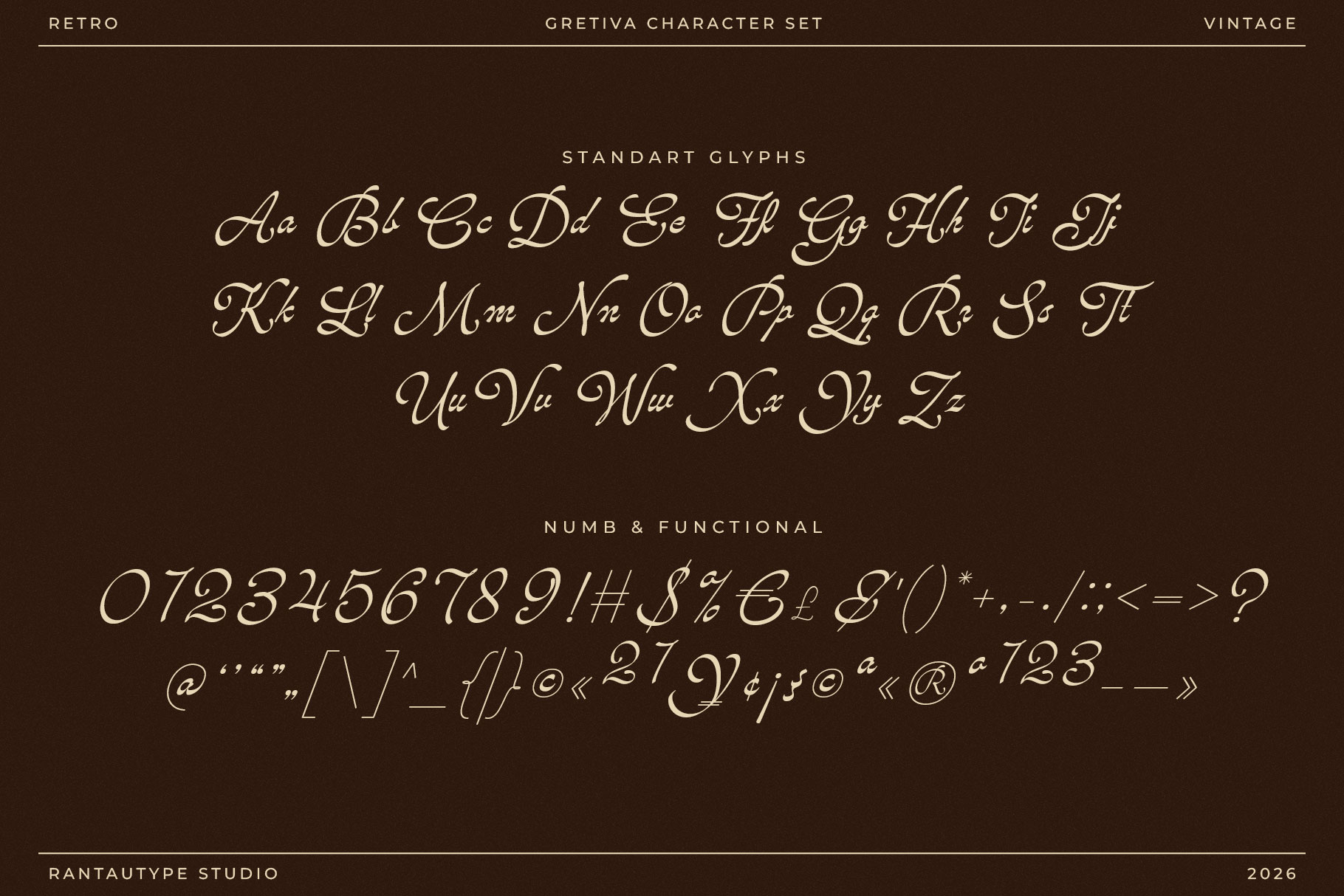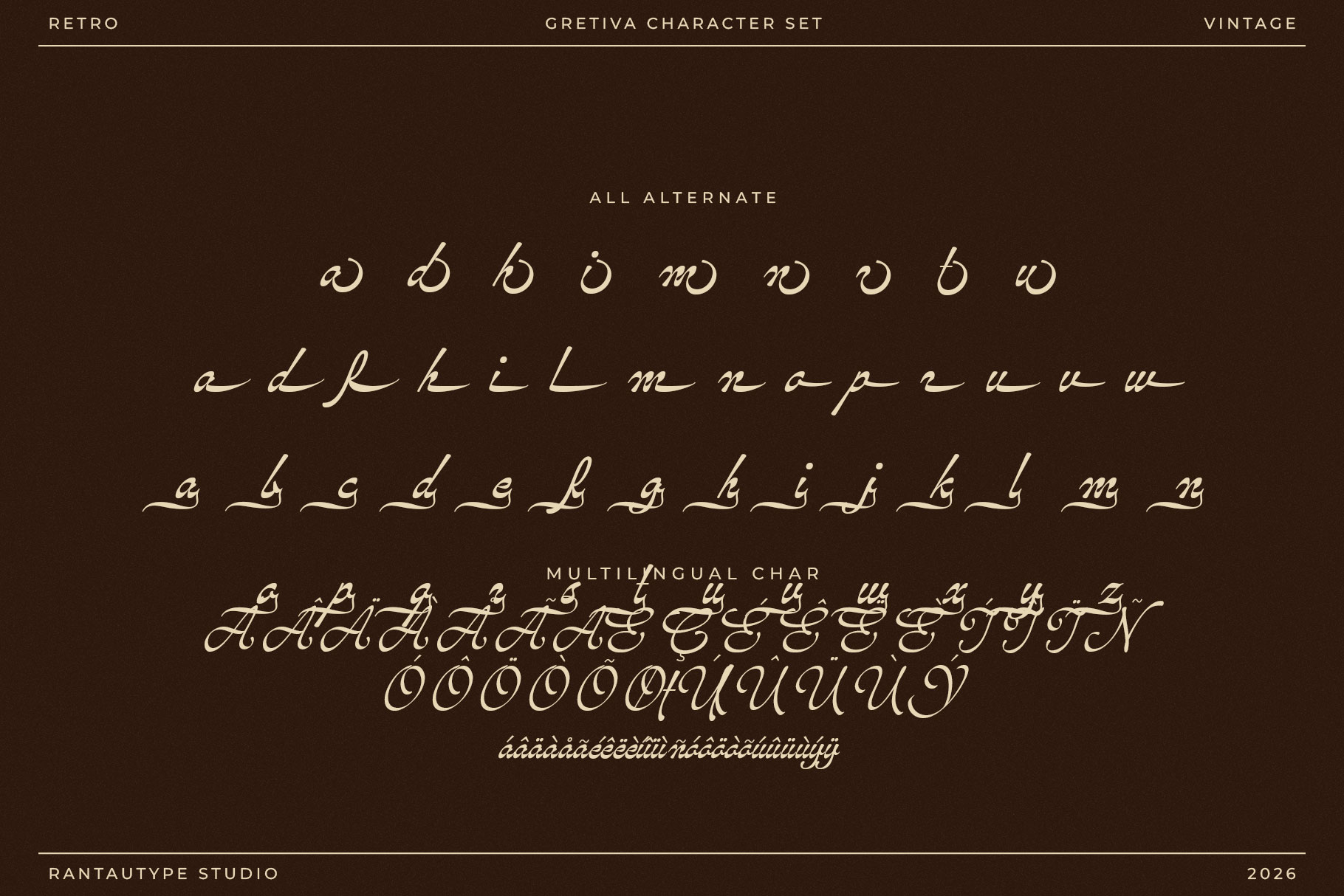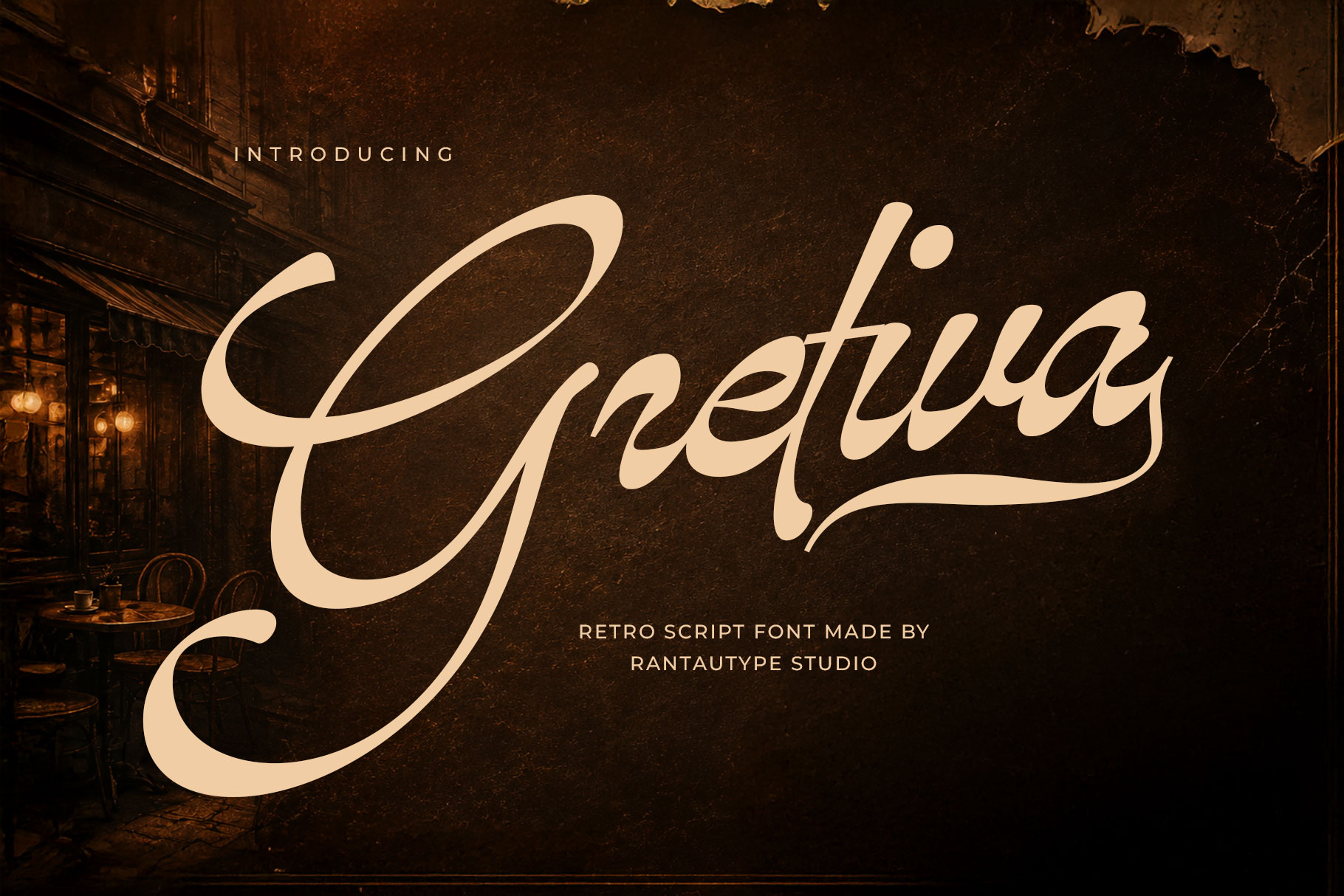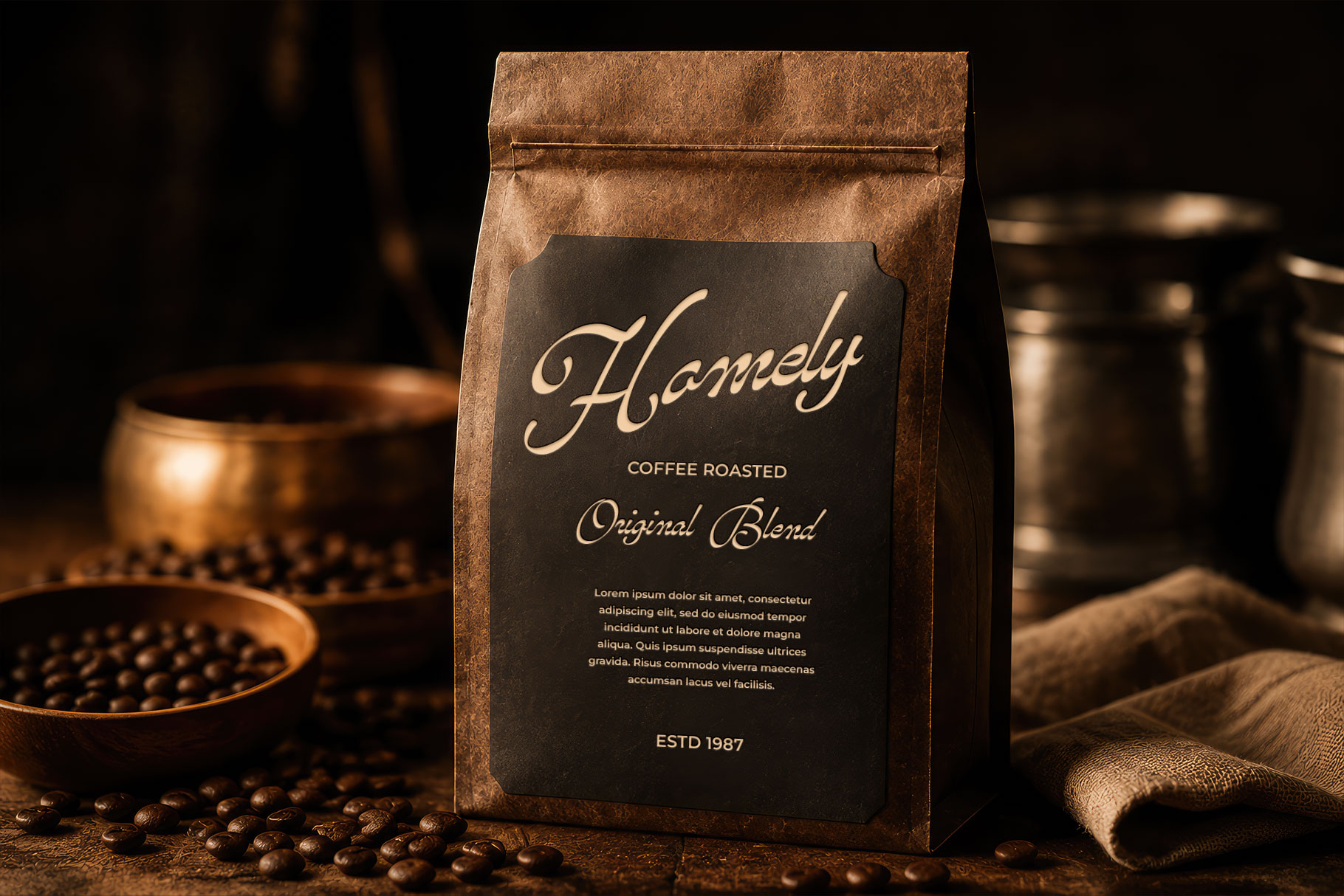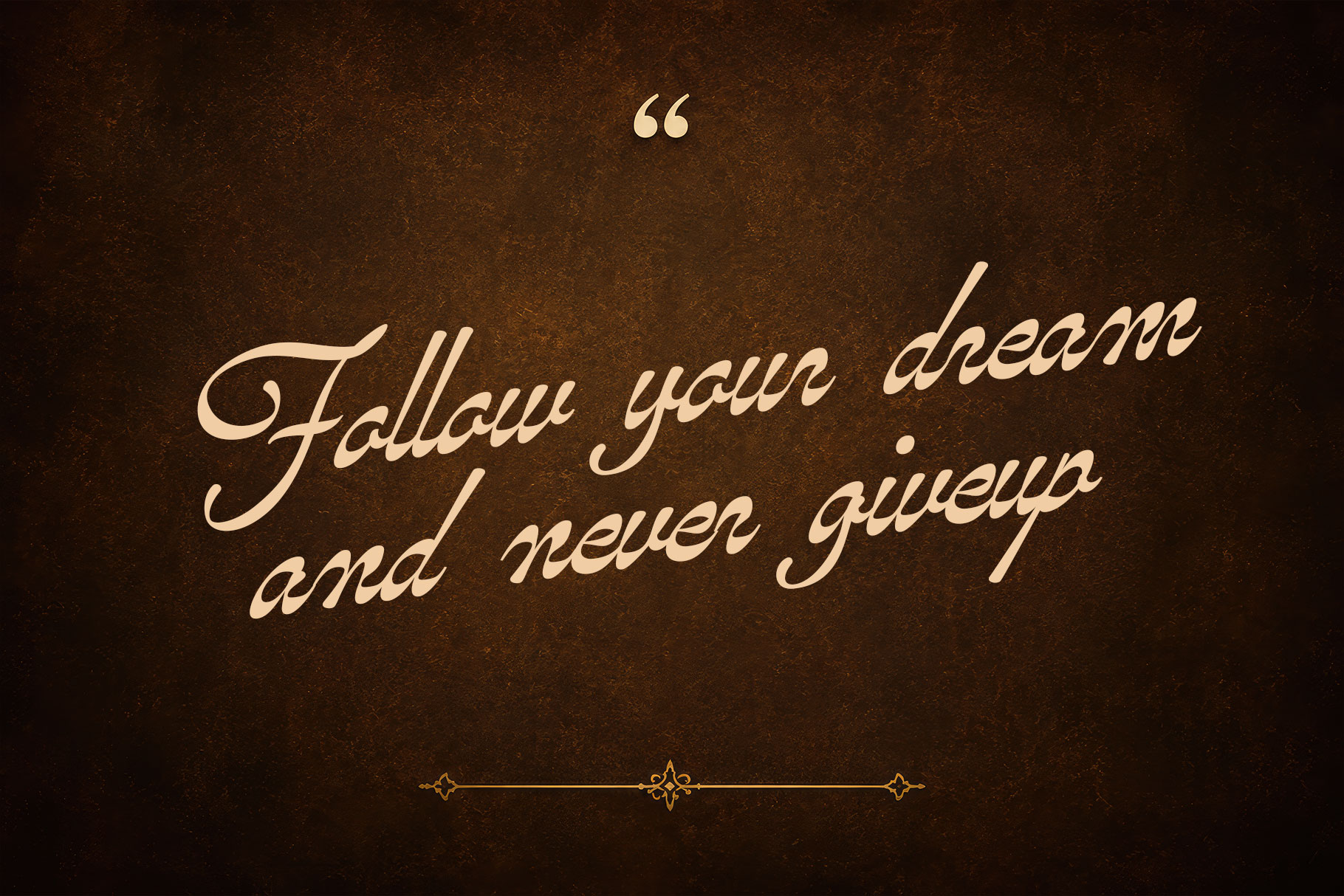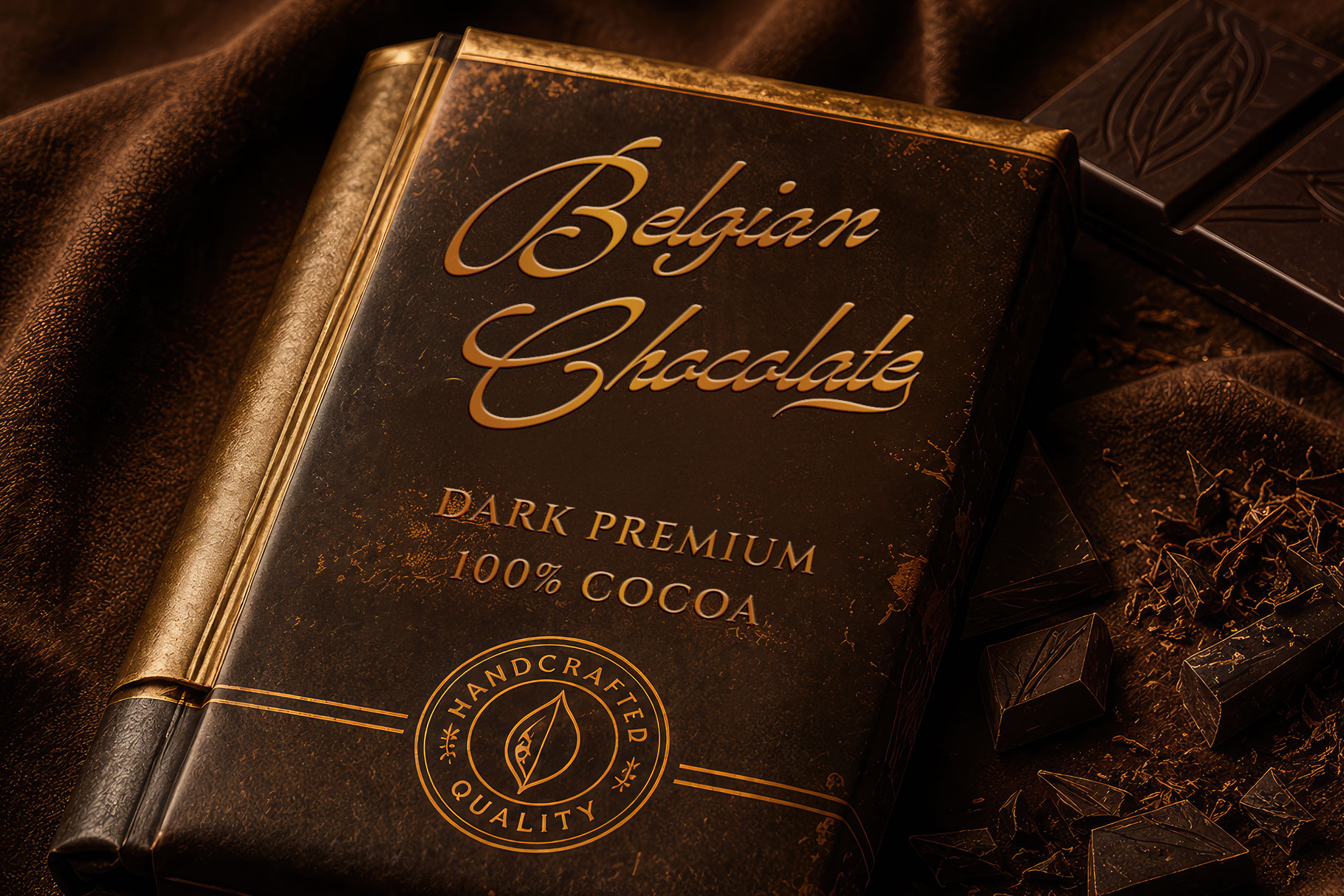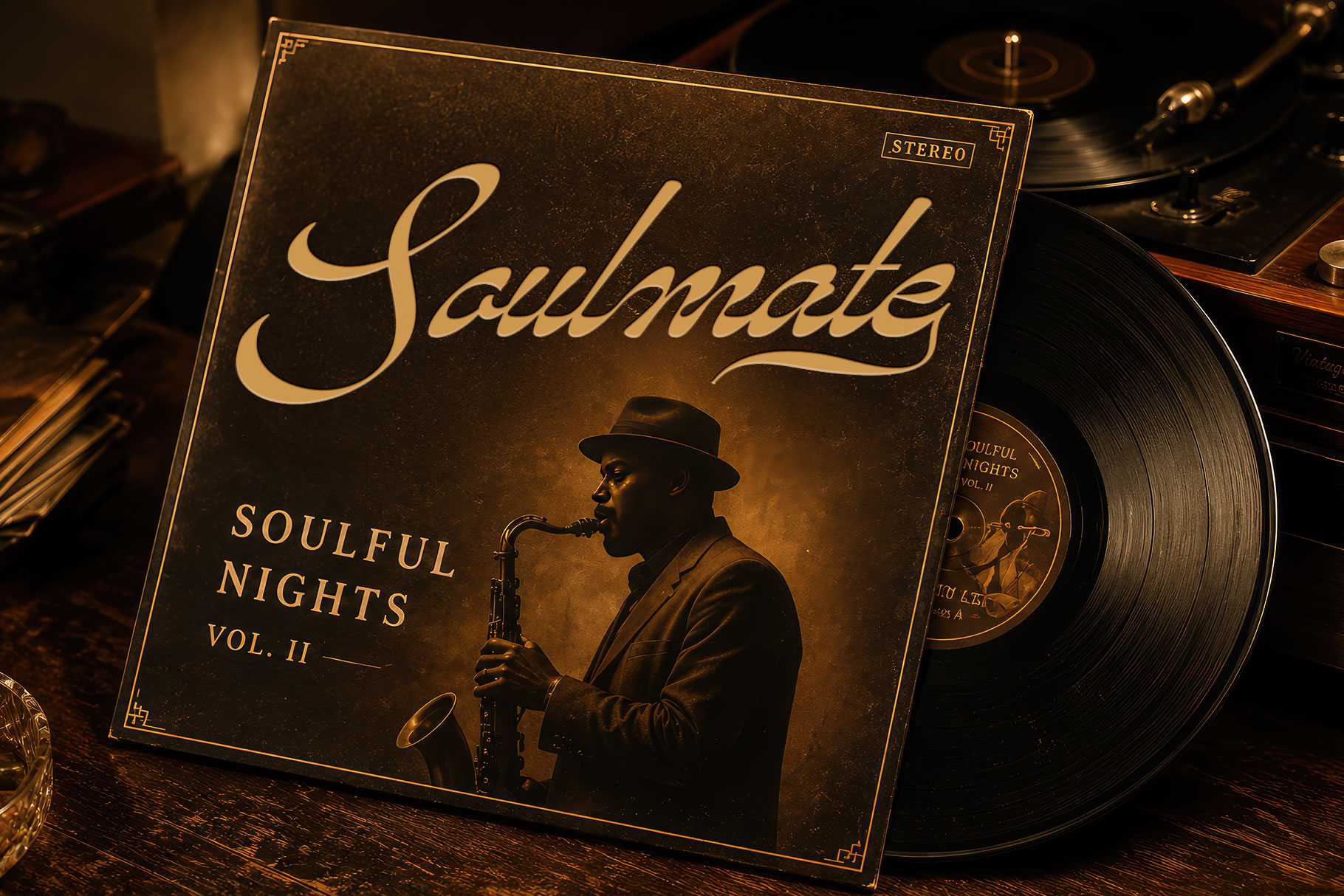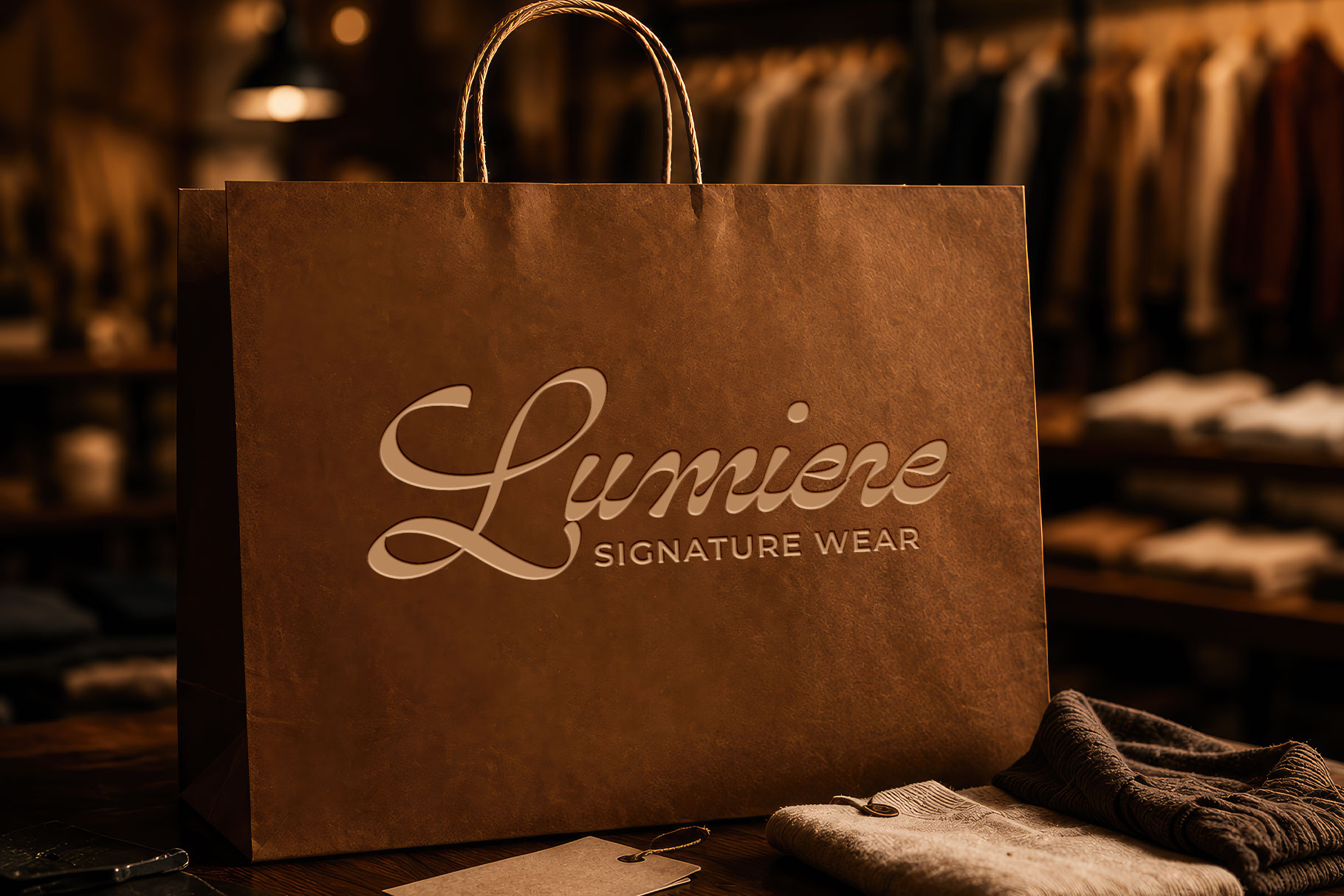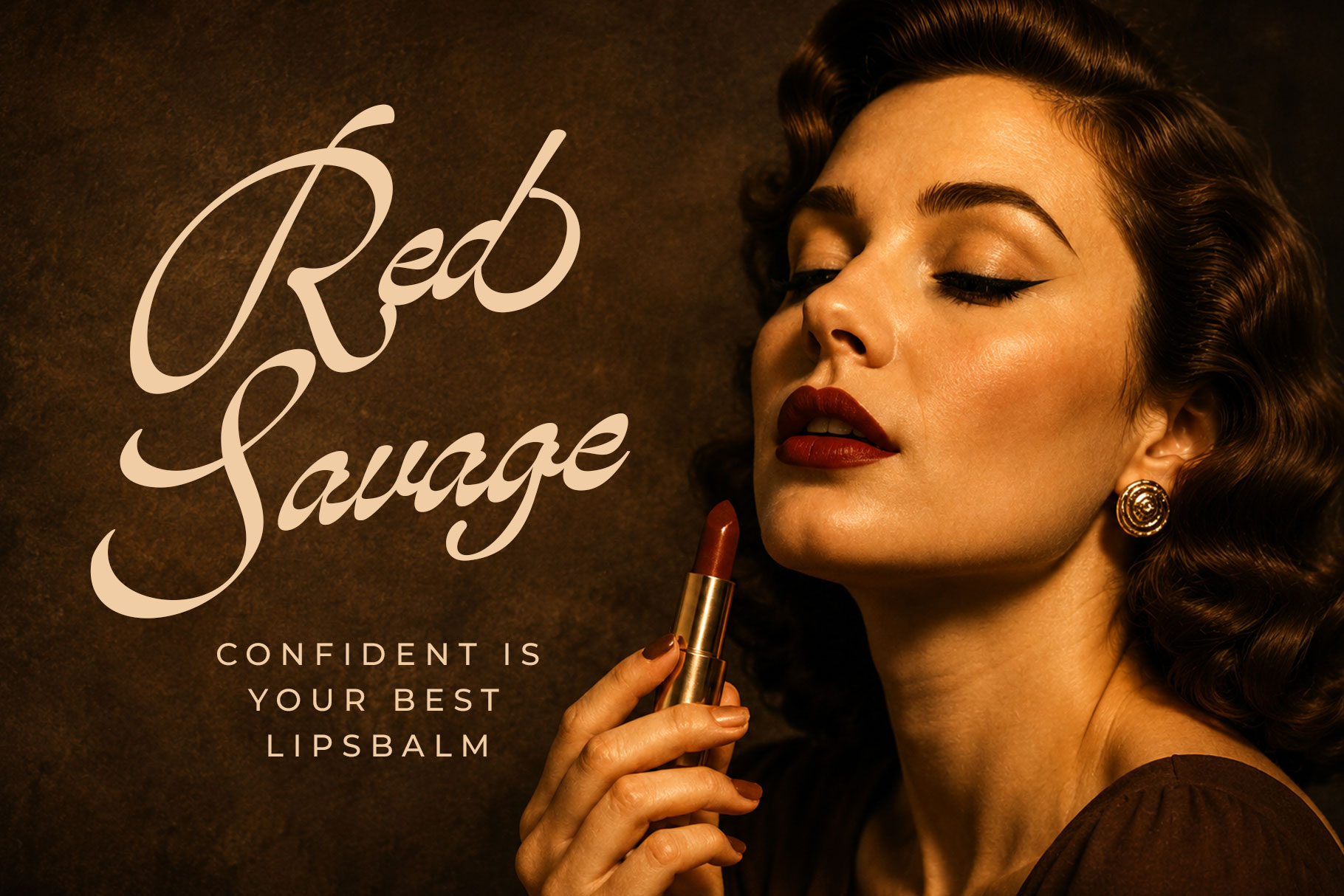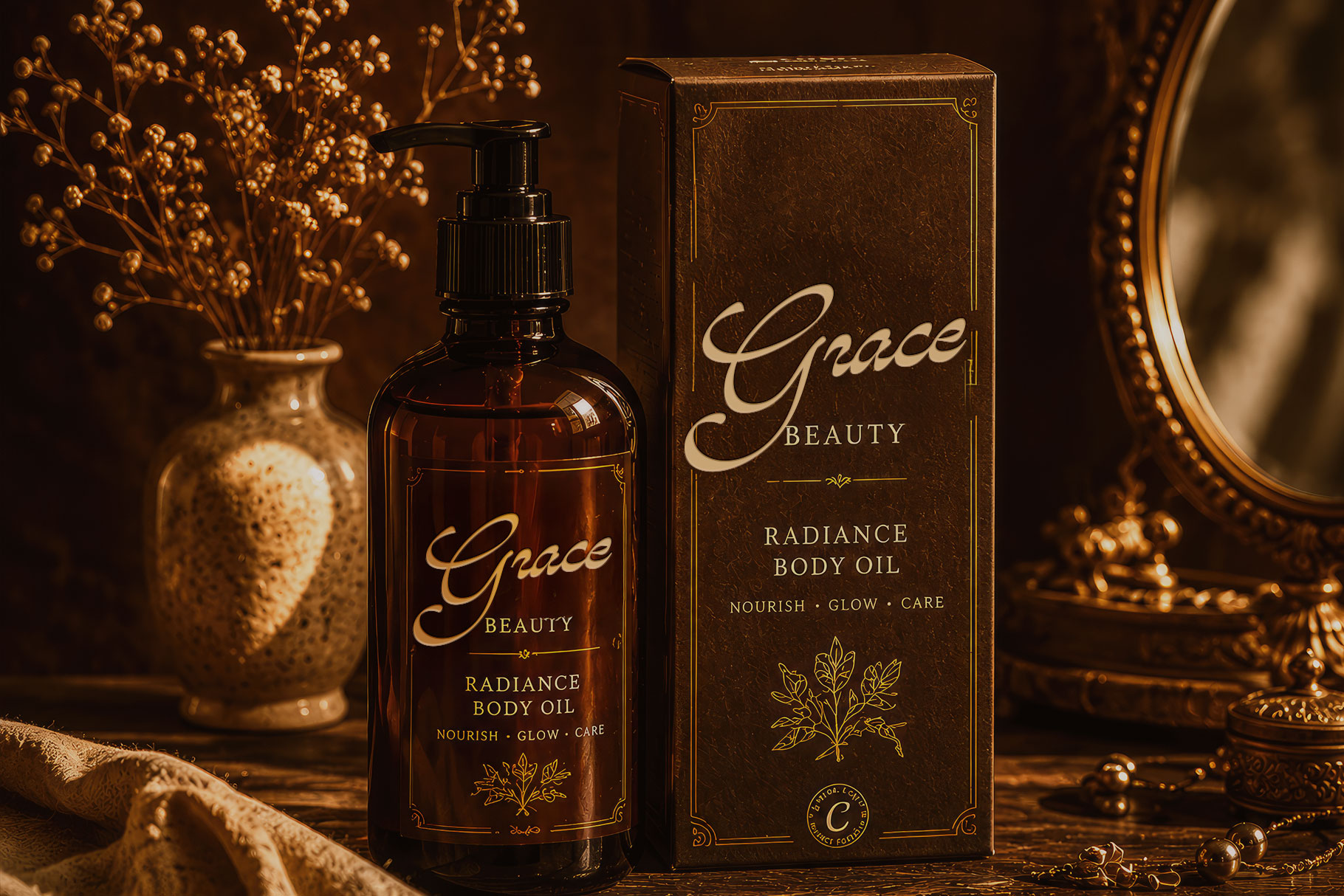
Gretiva is Retro vintage script font made by Rantautype Studio. Gretiva is a perfectly choice for any creative endeavor, creating, modern, lifestyle design such as logotype, title, cover, branding, invitations, wedding designs, display and magazine, social media posts, advertisements, printed quotes, product packaging, corporate brand, product designs, labels, photography, watermarks, special events and any other project with vintage touch.
Gretiva Retro Vintage Script Font